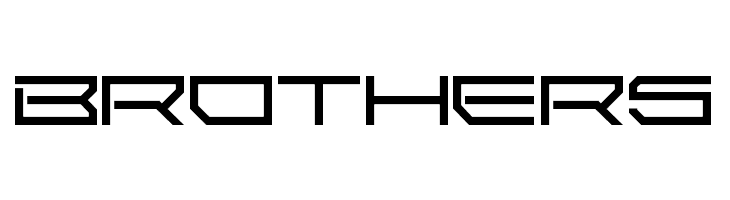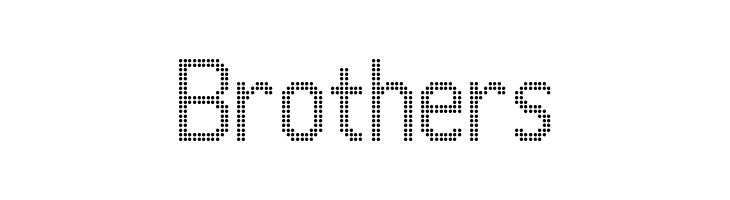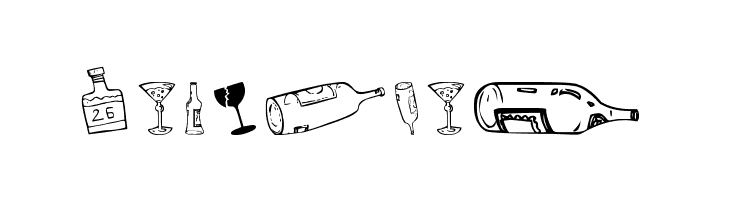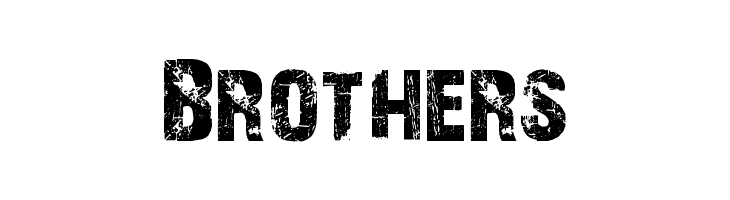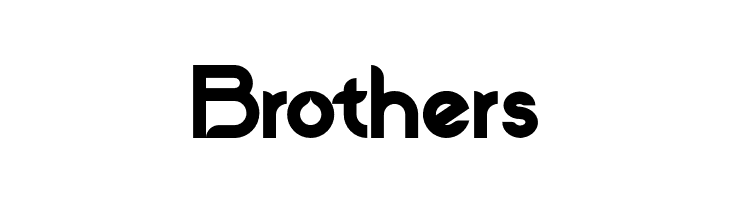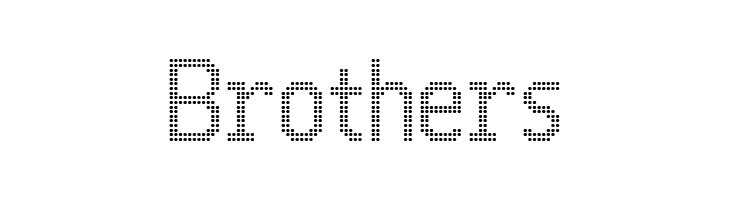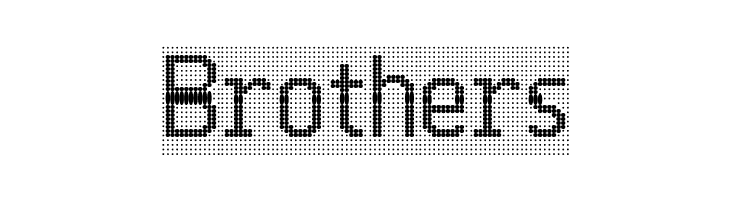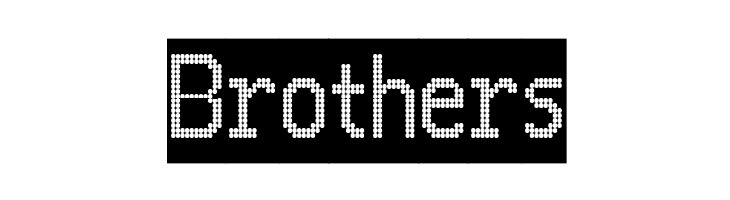
A modern, ultra-light font with geometric shapes and rounded edges.
A modern, ultra-light, rounded font with a minimalist design.
A modern, ultra-light geometric font with a sleek and minimalistic design.
A bold, futuristic font with geometric shapes and strong presence.
A hand-drawn, twig-like font with an organic, rustic style.
A playful, modern font with rounded, bold uppercase and smooth lowercase letters.
A playful, bold font with rounded edges and a slightly condensed style.
A bold slab serif font with a strong, authoritative appearance.
A bold slab serif font with strong, block-like serifs and a robust design.
Bold, geometric sans-serif Japanese font with strong, clean lines.
A modern, geometric font with clean lines and a minimalist style.
A modern, geometric font with clean lines and balanced spacing.
A dot matrix style font with a digital and modern aesthetic.
A bold, rounded font with a modern and approachable style.
A futuristic, geometric font with sharp angles and a mechanical feel.
A bold, geometric font with framed characters, ideal for modern and tech designs.
A decorative font with characters illustrated as various alcoholic beverages.
A bold, jagged font with a rugged, hand-cut appearance.
A bold, distressed font with a grunge, post-apocalyptic style.
A pixelated, retro-style font with a bold, digital aesthetic.
A bold, geometric font with modern and edgy characteristics.
A pixelated, retro-style font with a digital, blocky appearance.
Bold, geometric font with a modern, futuristic style.
A tall, narrow, and modern font with consistent stroke width and geometric elements.